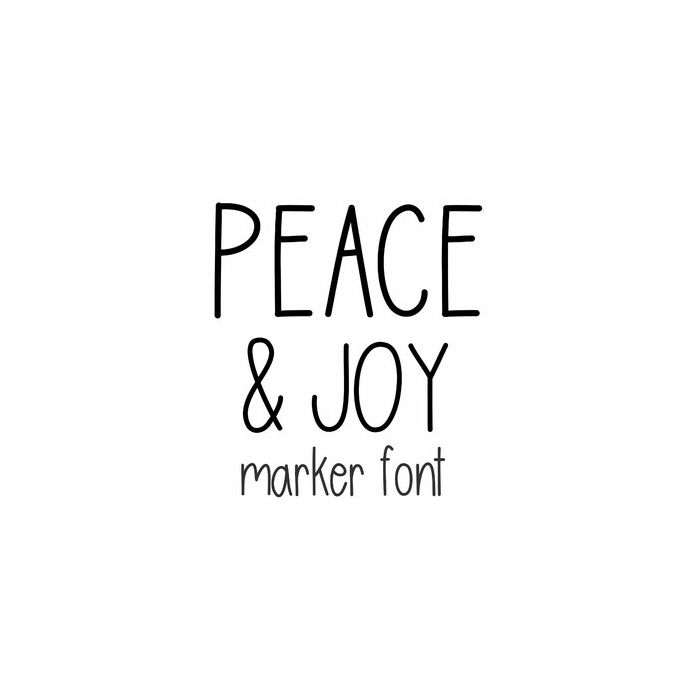
peace and joy marker font
Peace and Joy is a cute handwriting marker font, great for cards and personalization. Includes alphabet, numbers, and punctuation.